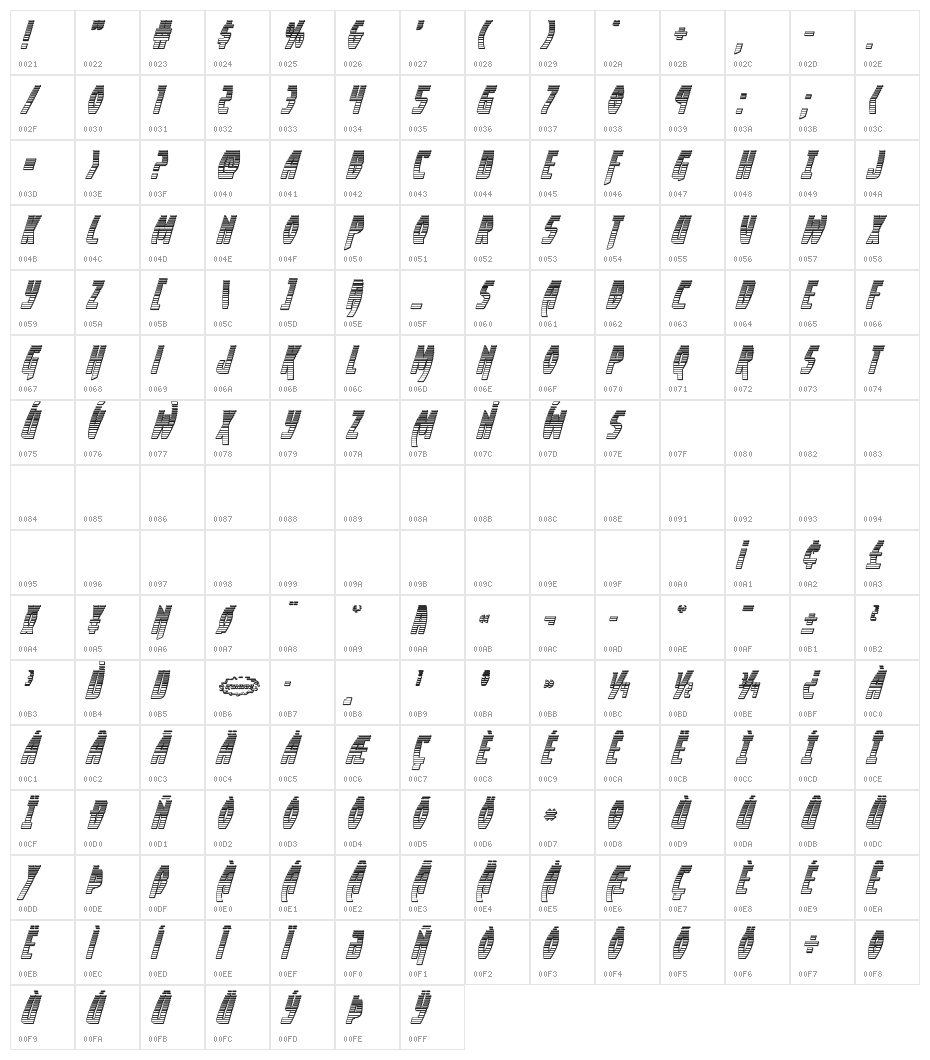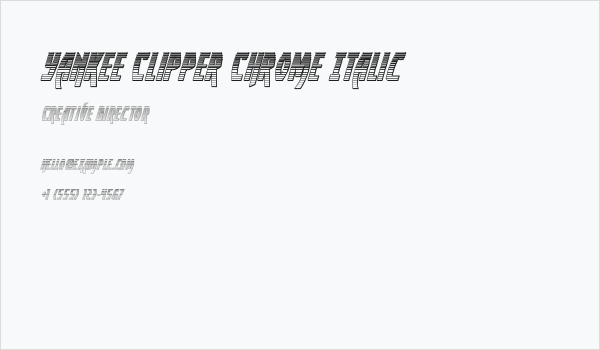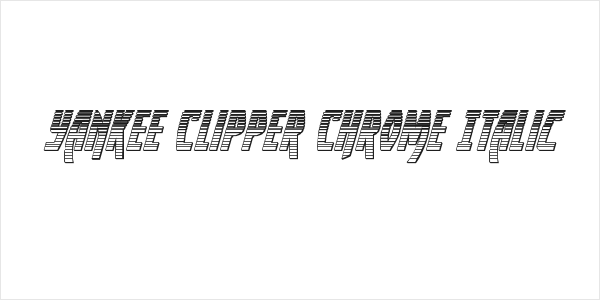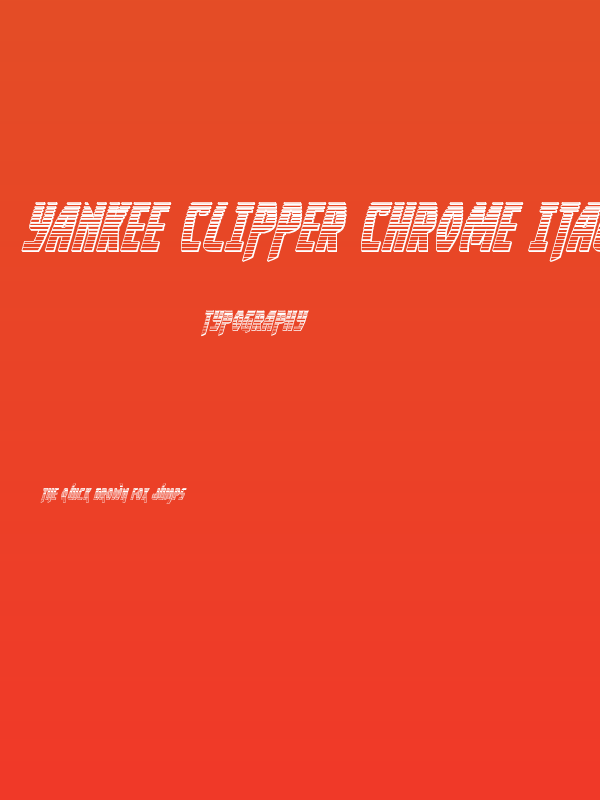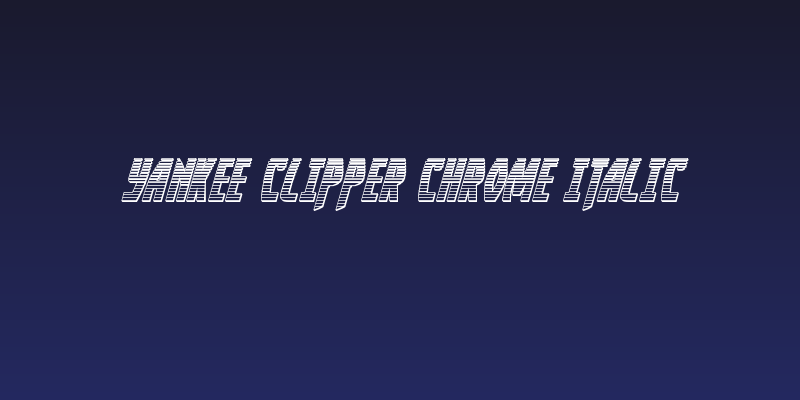
Yankee Clipper Chrome Italic Font
Yankee Clipper Chrome Italic Description
This font features a bold, italicized style with a distinct 3D effect created by horizontal lines that give it a chrome-like appearance. The characters are designed with a forward-leaning slant, enhancing the dynamic and futuristic feel. Each letter is outlined with a thick black border, adding to the boldness and making it stand out. The font is highly decorative, with a unique aesthetic that combines elements of retro and modern design. The spacing between characters is relatively tight, which complements the condensed width of the letters. This font is ideal for projects that require a striking and memorable visual impact.
| Overall Style | Futuristic, Decorative |
| Proposed Projects | Ideal for use in logos, headlines, posters, and any design project that requires a bold, eye-catching font. |